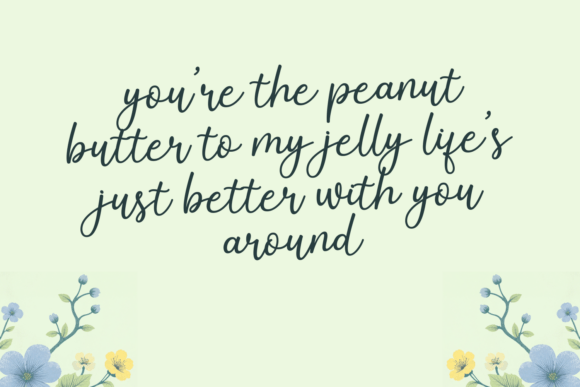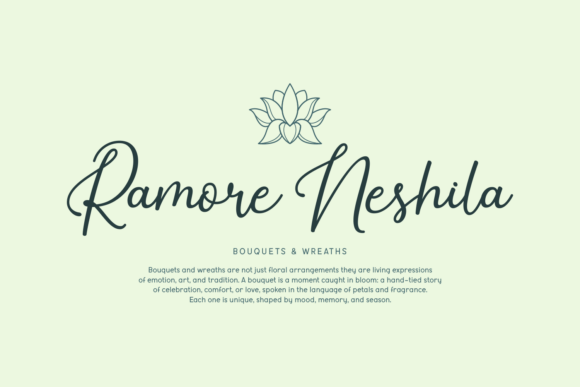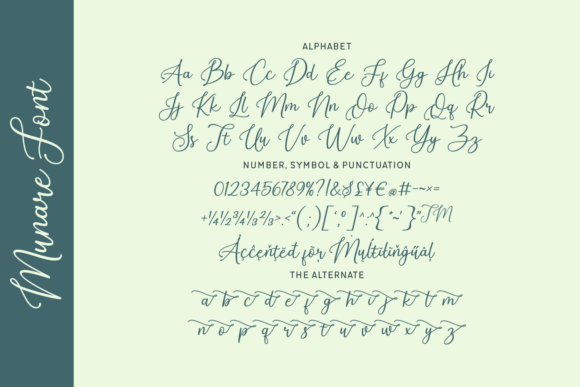
Introduction to Munare Font
Have you ever stumbled upon a font that makes your design dreams come true? That’s exactly what happened to me when I discovered the enchanting Munare Font. I was working on a wedding invitation project, and I needed a font that exuded elegance and romance. As I browsed through my design resources, I came across Munare, and I knew I had found the perfect match.
Munare Font is more than just a pretty face; it’s a high-quality design resource that adds a touch of sophistication to any creative project. With its soft, modern script style and delicate details, Munare is ideal for floral-themed branding, wedding stationery, and romantic quotes. Its lightweight charm makes it a great choice for designers who want to add a fresh, feminine feel to their projects without sacrificing simplicity.
Munare Font: Key Features
- High-quality font design suitable for creative projects and professional use.
- Features a unique, modern design aesthetic that can elevate any project.
Honest Review: Munare Font
I recently came across the Munare Font and was excited to give it a try in my creative project. The first thing I noticed was its sleek and modern design, which would be perfect for any high-quality publication or website. The font comes with a transparent background, making it easy to use in various design scenarios.
Here are some things that work well with the Munare Font:
- ✨ High-quality design: The font looks great and is sure to elevate any design project.
- ✨ Wide range of styles: The Munare Font comes in several styles, making it easy to find the perfect one for your needs.
- ⚠️ Limited customization options: While the font comes in several styles, there are limited options for customization.
- ⚠️ Not suitable for all design projects: The Munare Font is best suited for modern and sleek designs, and may not be the best choice for more traditional or classic projects.
Overall, I’m impressed with the Munare Font and would definitely recommend it as a design resource. It’s a great choice for designers looking for a high-quality font with a modern twist.
Munare Font
The Munare Font is a versatile and elegant design resource perfect for any creative project. It features a high-quality, transparent background that allows for seamless integration with your design.
Tips for Getting the Most Out of Munare Font
To get the most out of the Munare Font, try the following:
- Use it in combination with other design elements, such as graphics and textures.
- Use the Munare Font for headings and titles to create a consistent design language.
The Munare Font is perfect for a variety of design projects, including:
- Brand identities and logos.
- Business cards and stationery.
- Presentations and slides.
- Web design and development.